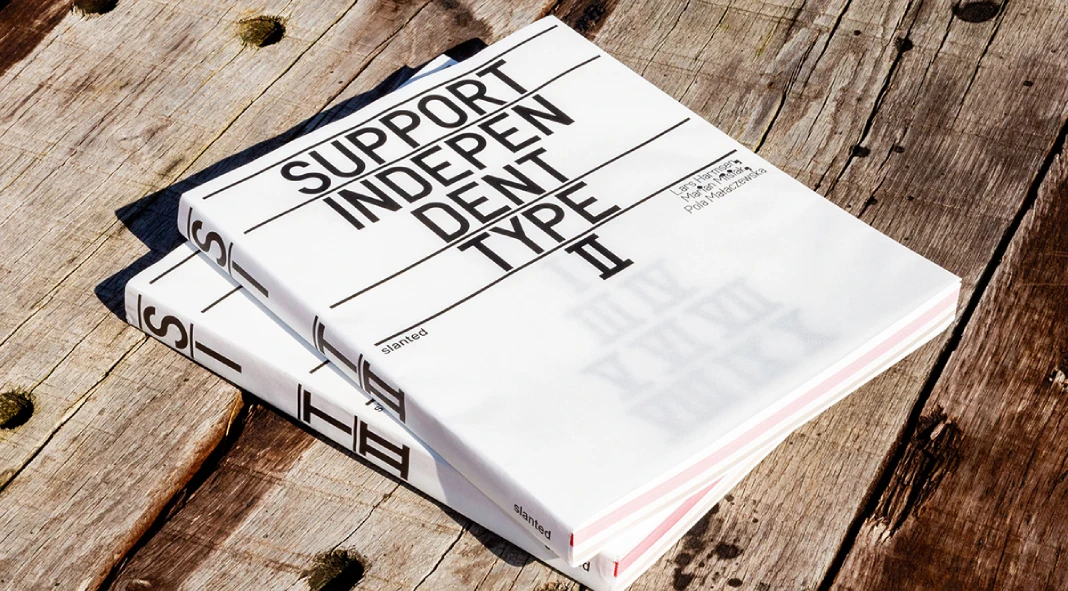
Look around you. Right now. Letters are everywhere, aren’t they? On the screen you’re reading, the packaging in your kitchen, maybe even the spine of a book nearby. We navigate a world built with text. It’s incredibly easy to overlook typography, to see it as just functional background noise. But pause for a moment. Think about the distinct personality of your favorite brand’s logo, or how some websites feel intuitive and pleasant to read while others are a struggle. That’s the power of typography in action. It’s a subtle yet potent art form influencing our experiences constantly. But here’s a question worth pondering: where do all these diverse, expressive, sometimes wonderfully strange fonts actually originate? Big software names might come to mind, and they certainly play their part. However, a whole universe of creativity bubbles just beneath that surface. It’s the world of independent type foundries. Often, these are small studios, perhaps even solo designers, investing incredible passion and countless hours into handcrafting unique letterforms. They don’t just follow trends; they often create them, pushing boundaries and reflecting our ever-changing visual culture. Supporting these independent creators isn’t merely about acquiring interesting fonts; it’s about nurturing the very roots of design innovation and diversity. This brings us to the release of Support Independent Type II.
A Tribute to the Dedication, the Artistry, and the Often Rebellious Spirit Fueling Independent Type Design Today.
Perhaps you recall the impact of the first Support Independent Type book from Slanted Publishers back in 2020? It was a revelation for many – a beautifully produced declaration, a vibrant showcase celebrating the sheer ingenuity flourishing outside the corporate font world. Well, prepare yourself, because the keenly awaited follow-up is coming, and it promises even more depth and excitement. Support Independent Type II transcends being just another book listing fonts. Consider it a curated snapshot of a vital global movement. It stands as a tribute to the dedication, the artistry, and the often rebellious spirit fueling independent type design today. If design matters to you, if typography fascinates you, or if you simply crave exposure to the leading edge of visual expression, this is a publication demanding your attention. It explores this captivating domain, highlighting the remarkable work being produced and underscoring why independence in the creative industries is so crucial. Let’s delve into what makes this release truly essential.
Defining Support Independent Type II
So, what is Support Independent Type II in essence? It’s the highly anticipated successor to the original, acclaimed publication by the respected Slanted Publishers. Guided by the editorial and design vision of Lars Harmsen, Marian Misiak, and Pola Małaczewska, this second volume passionately continues the mission: to champion and vividly display the dynamic world of independent type specimens. It functions beautifully as both a compelling manifesto for creative freedom and an awe-inspiring visual compendium. Picture yourself leafing through pages alive with typographic invention – that is the experience Support Independent Type II delivers. It moves beyond simple font display, investigating the rich culture surrounding type creation and application.
Critically, the book features work from over 300 pioneering type foundries across the globe. Pause and consider that figure: 300+. This isn’t some obscure corner of the design world; it represents a flourishing, diverse, international ecosystem teeming with unique talent. Support Independent Type II provides a crucial platform for these often smaller players, presenting a vibrant and necessary alternative to the sometimes predictable offerings of large, corporate font distributors. It offers readers a direct connection to the heartbeat of contemporary type design.
A Showcase of Typographic Diversity
What styles of typefaces should you anticipate finding within its pages? Expect an astonishing range. Support Independent Type II makes a conscious effort to present the full spectrum of modern typographic expression. You will encounter meticulously crafted text faces designed for readability, sitting comfortably alongside daring, experimental display fonts that actively challenge typographic norms. Some designs communicate with quiet elegance, while others make bold, unmissable statements. You’ll find fonts embodying refined sophistication and others embracing raw, even disruptive, aesthetics. This collection bravely ventures to the experimental frontiers of typography, unveiling groundbreaking designs that expand our understanding of what letterforms can achieve.
Furthermore, the book smartly avoids limiting its scope to just digital fonts presented conventionally. It embraces the richness of type specimens in their varied manifestations. Prepare to see examples showcased digitally, through beautifully executed print artifacts, and even via intriguing tactile type objects. This multi-dimensional approach effectively underscores the versatility of type itself and the imaginative ways contemporary designers choose to present their creations. It truly encapsulates the vibrant, multifaceted reality of the independent type community.
Cultural Insights and Trends Within Support Independent Type II
Support Independent Type II achieves more than just cataloging current typographic output; it provides sharp insights into emerging trends and key innovations shaping the field. By assembling such an extensive and varied collection, the editors offer a unique vantage point for observing the trajectory of modern type design. What novel aesthetics are capturing attention? How are type designers integrating and responding to new technologies? Which visual dialects are resonating most strongly in today’s diverse cultures? The book addresses these questions implicitly through its careful curation.
Importantly, it also examines how independent type foundries represent a potent challenge to the market dominance of large corporate entities. Perhaps more profoundly, it explores how their work often mirrors and responds to larger cultural currents and transformations. Independent type design frequently acts as a sensitive indicator of societal shifts, evolving artistic movements, and changing modes of communication. These foundries aren’t merely passive reflectors of culture; they are active participants in shaping it, introducing fresh viewpoints and diverse voices into our shared visual environment. Support Independent Type II illuminates this vital connection, elevating the discourse surrounding type beyond pure aesthetics and into the realm of cultural significance.
A Manifesto and an Essential Design Resource
To label Support Independent Type II merely as a ‘book’ somewhat misses the mark. It presents itself confidently as a manifesto – a clear statement championing the inherent value and undiluted energy of independent creation within the design sphere. Furthermore, it celebrates the intense passion, unwavering dedication, and singular vision that independent foundries contribute. It actively encourages designers, clients, and enthusiasts alike to venture beyond the familiar choices and discover the wealth of compelling alternatives available. Support Independent Type II makes a strong case for looking deeper.
Concurrently, it functions as an utterly indispensable resource. For whom is this volume intended? Graphic designers searching for novel typographic inspiration will discover an absolute goldmine within its pages. Creative directors aiming to distinguish their projects with unique, meaningful typefaces will find a vast array of possibilities. Educators responsible for teaching typography will recognize it as an invaluable asset for illustrating contemporary practice and thinking. And, naturally, anyone with a deep-seated love for type – the dedicated “type enthusiasts” among us – will find endless visual pleasure and intellectual stimulation. It serves as a reference guide, an inspirational catalyst, and a desirable object all at once. Think of Support Independent Type II as your essential navigator to the present and future of type.